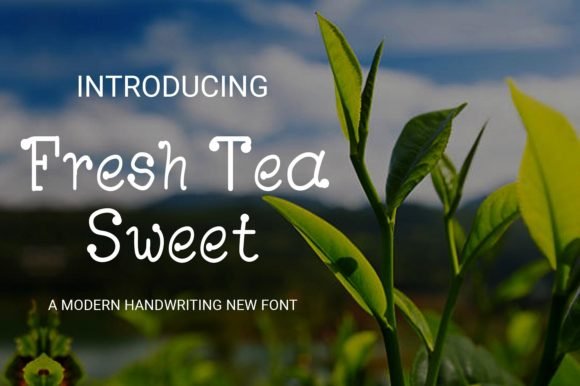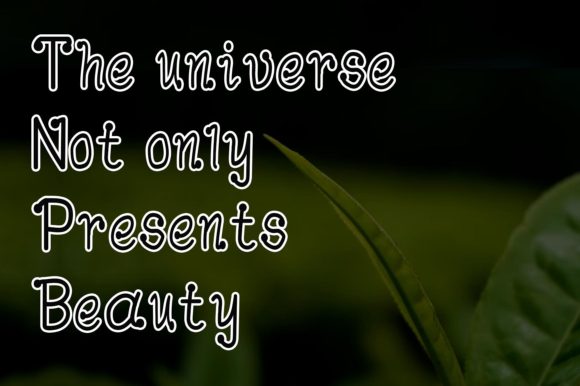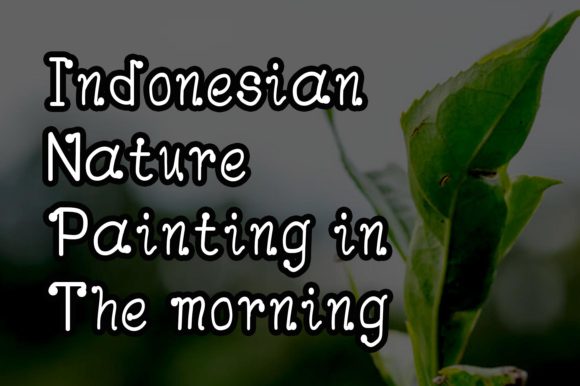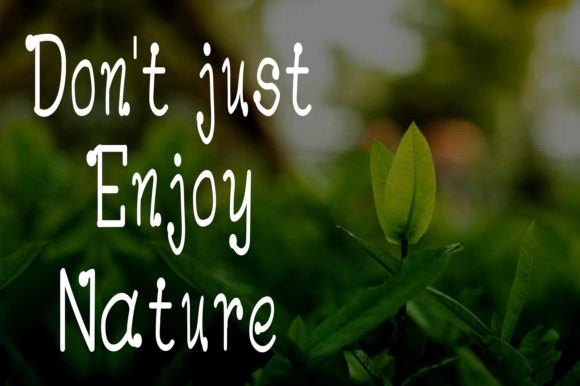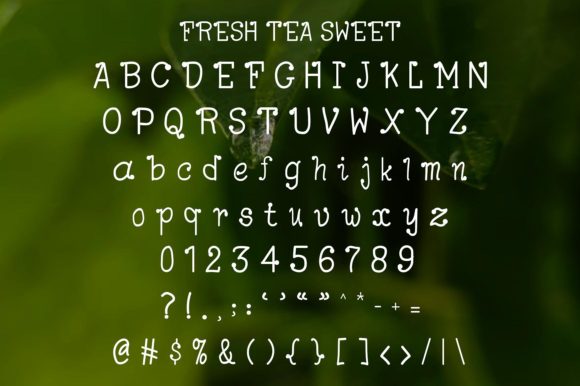
As a designer, there’s nothing quite like the thrill of creating something from scratch. The blank page stares back at you, waiting for your imagination to bring it to life. And then, it happens – a spark of inspiration strikes, and you envision the perfect font to capture the essence of your design. For me, that moment came when I stumbled upon the Fresh Tea Sweet Font.
This delicate and fashionable script font is the perfect addition to any branding project, from logos to t-shirt printing and beyond. Its elegant design makes it a valuable asset for designers seeking to add a touch of sophistication to their creations. With the Fresh Tea Sweet Font, you can create a lasting impression that will leave a lasting impact on your audience.
Fresh Tea Sweet Font Key Features
- Font Family: Fresh Tea Sweet Font is a unique, handwritten script font designed for creative and elegant typography.
- Character Count: The font family includes 400 characters, including uppercase and lowercase letters, numbers, and punctuation marks.
- Size and Resolution: The font is available in a single weight and can be scaled to various sizes, making it suitable for both small and large typography projects.
- Unique Characteristics: Fresh Tea Sweet Font features a distinctive, flowing script style with subtle imperfections, giving it a hand-written feel.
Designer Review: Fresh Tea Sweet Font
As a designer, I was excited to dive into the Fresh Tea Sweet Font, and I’m here to share my honest thoughts.
- Unique charm: Fresh Tea Sweet Font has a distinct, whimsical feel that’s perfect for adding a touch of personality to your designs.
- High-quality glyphs: The font features a wide range of characters, including a variety of symbols and special characters, making it suitable for a variety of projects.
- Good legibility: Despite its playful nature, Fresh Tea Sweet Font remains legible at various font sizes, making it a solid choice for body text.
- Not ideal for headlines: While the font is great for body text, it may not be the best choice for headlines due to its relatively small x-height.
Overall, Fresh Tea Sweet Font is a charming and versatile font that’s perfect for adding a touch of personality to your designs. While it has some limitations, it’s a solid choice for designers looking for a unique, high-quality font.
For best results, use the font in a title or heading, as it’s designed to be eye-catching and playful.
2. Combine the font with other playful elements, such as illustrations or graphics.
3. Use the font in a title or heading, as it’s designed to be eye-catching and playful.
“Fresh Tea Sweet Font” is perfect for:
1. Food and beverage branding.